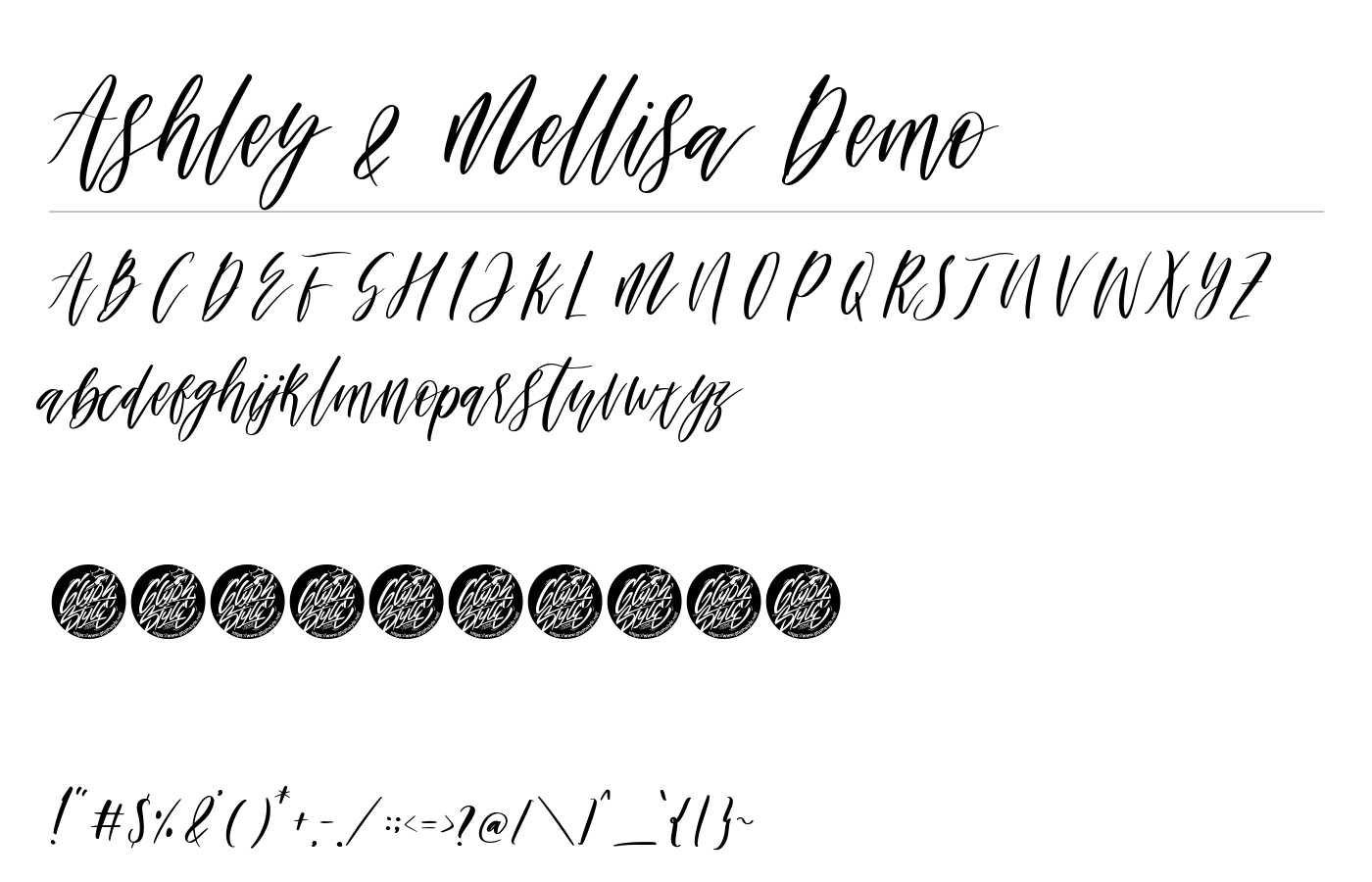
Ashley & Mellisa Demo is a stylish script font that features elegant, flowing letterforms with a natural handwriting feel. Its thin, delicate strokes and smooth connections give it a sophisticated yet approachable look, making it perfect for wedding invitations, branding, and other projects needing a graceful, personal touch. This font works well in designs that aim to convey creativity and charm with a modern, feminine flair.
Ashley & Mellisa Demo Font
About Ashley & Mellisa Demo Font